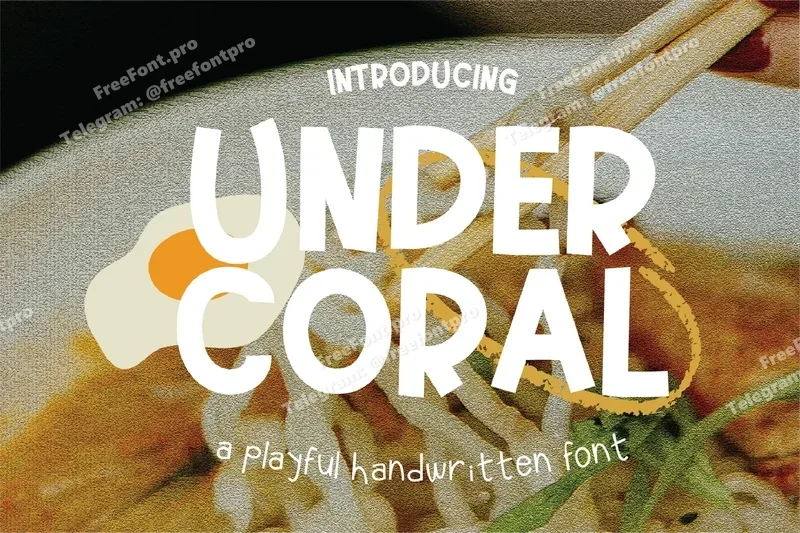
Undercoral – Handwritten Font
Undercoral is a playful display font inspired by fun and creativity. With its quirky shapes and bold character, this typeface is ideal for posters, logos, packaging, children’s designs, and any project that needs a vibrant and cheerful vibes.